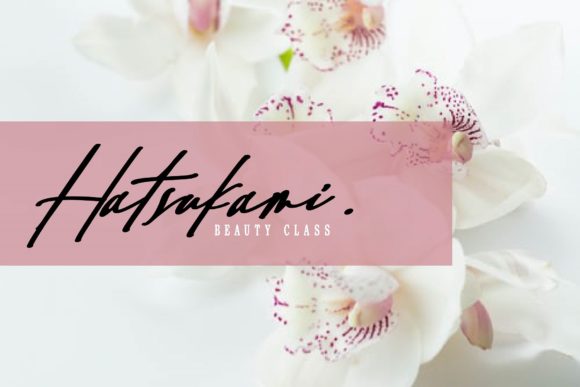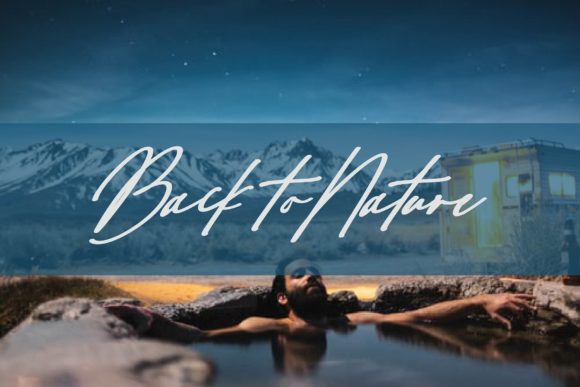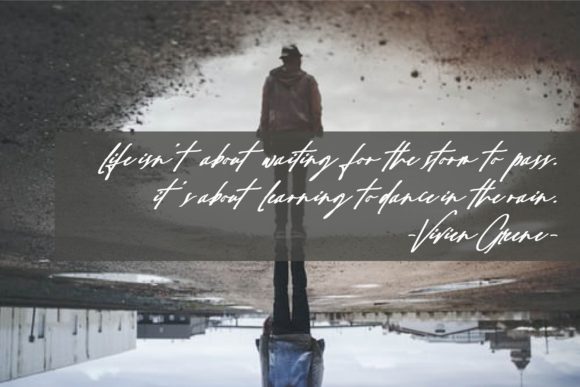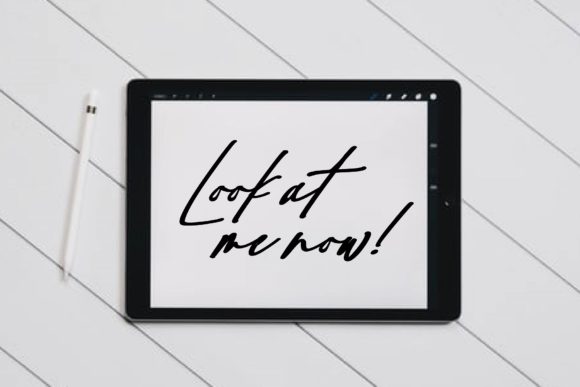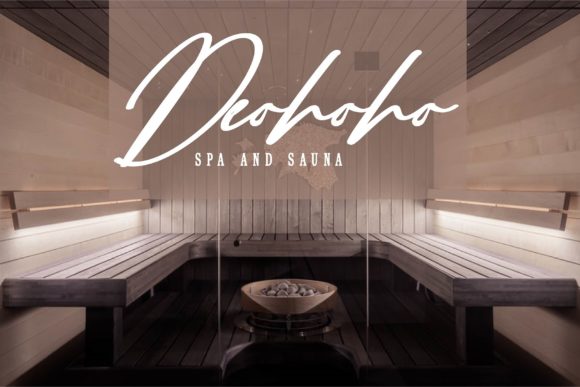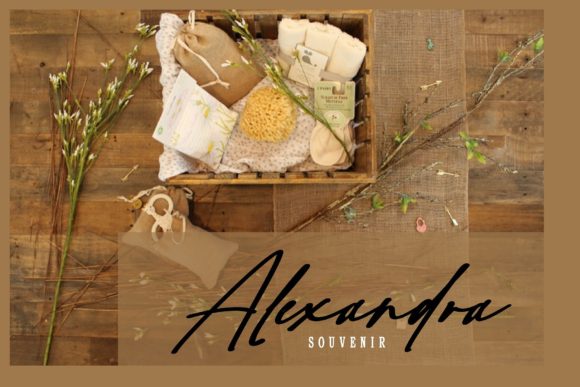
Introduction to Roster Holding Font Font
Fonts play a crucial role in design, and the Roster Holding Font font is a typeface that brings both character and versatility to any project. Whether you’re working on a branding project, a website, or a print design, the Roster Holding Font font offers a unique style that can elevate your work.
Roster Holding is a stylish and delicate script font.
It will look stunning on any poster, flyer or print Use this font for your designs and explore its endless possibilities.
Key Features of Roster Holding Font Font
Why Choose Roster Holding Font Font?
The Roster Holding Font font is more than just a typeface – it’s a design tool that helps you communicate your message with style and clarity. Its unique character set and versatile design make it suitable for a wide range of applications, from elegant invitations to bold headlines.
With its carefully crafted letterforms and balanced proportions, the Roster Holding Font font ensures readability and visual appeal across all mediums.
What makes Roster Holding Font font special?
The Roster Holding Font font stands out with its unique design, exceptional readability, and versatility across various design applications.